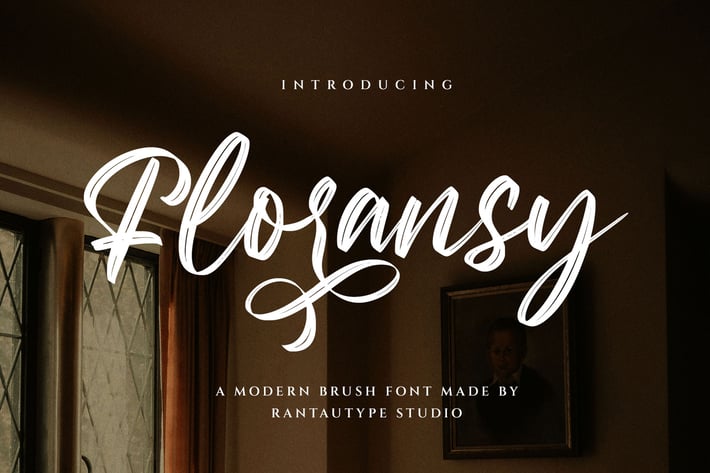
Floransy Modern Brush Font
Floransy is a brush font with modern look. Florancy come with unique brush character make it elegancy beautiful for your design project. Floransy is a perfectly choice for any creative endeavor, creating elegant, modern, chic, lifestyle design such as logotype, title, cover, branding, invitations, wedding designs, display and magazine, social media posts, advertisements, printed quotes, product packaging, corporate brand, product designs, labels, photography, watermarks, special events and any other project with handwritten touch.